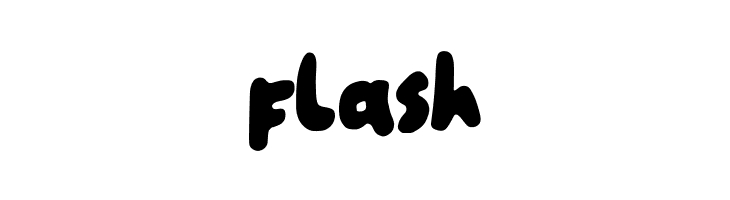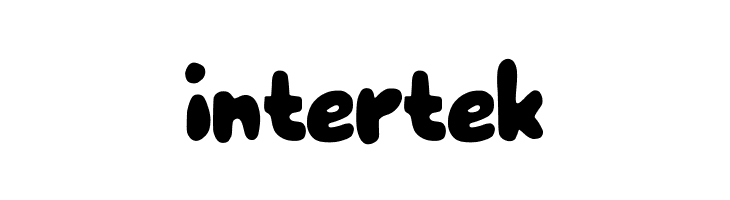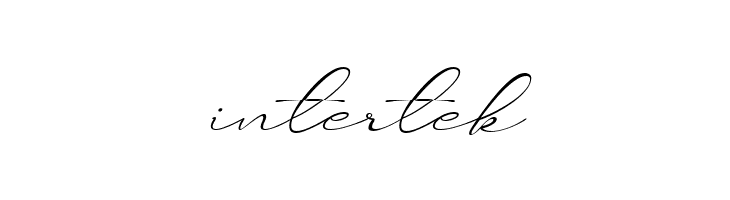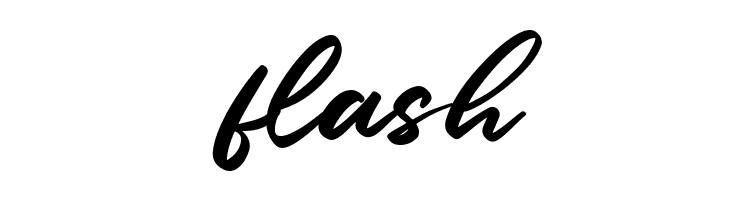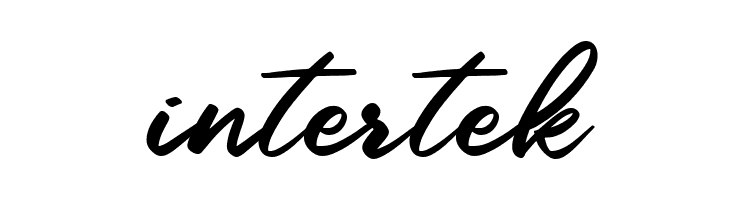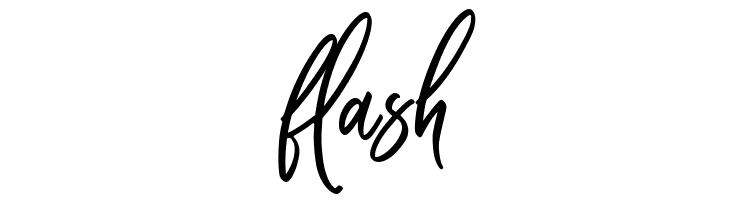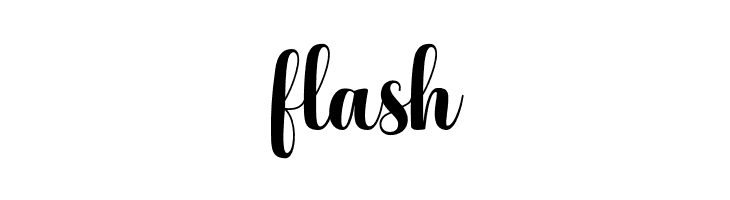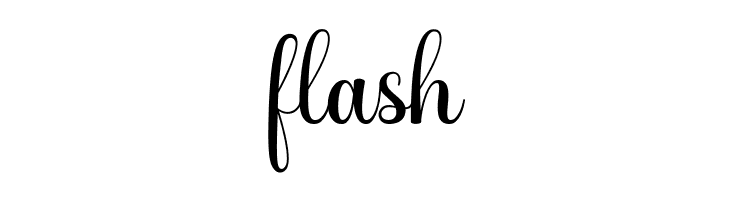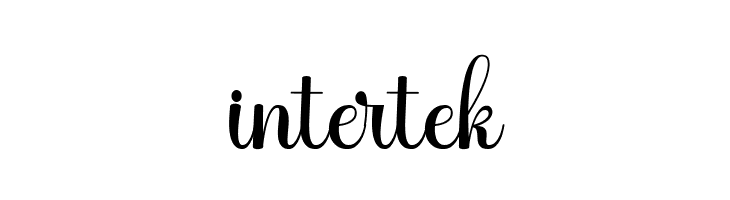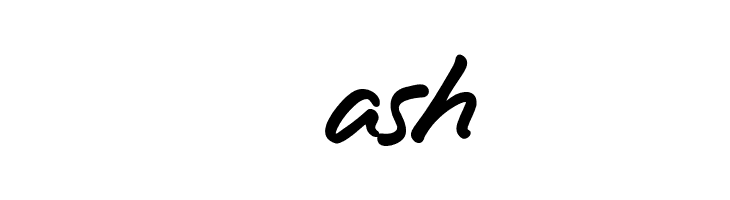
A charming script font with elegant, flowing cursive letters.
A romantic, cursive font with elegant, flowing letters and whimsical embellishments.
A bold, expressive script font with a dynamic, handwritten style.
An elegant, flowing script font with graceful loops and smooth cursive strokes.
A charming script font with elegant, flowing lines and a handwritten appearance.
A dynamic, brush-style script font with expressive, flowing characters.
Bold, modern handwritten script font.
A graceful and elegant script font with flowing, cursive letters.
An elegant and sophisticated script font with flowing, cursive style.
A dynamic brush script font with an energetic, hand-drawn style.
A casual handwritten font with smooth, slightly slanted strokes.
A playful, handwritten font with rounded edges and a casual style.
A playful, handwritten font with rounded edges and a casual, whimsical style.
A bold, handwritten font with fluid, connected strokes and a lively appearance.
A dynamic and fluid script font with elegant, flowing lines and cursive letterforms.
A bold, modern sans-serif font with a clean and geometric style.
Bold cursive script with elegant curves.
Elegant handwritten script font.
An elegant, flowing script font with a handwritten appearance.
An elegant script font with ornate, flowing letterforms and intricate flourishes.
A whimsical, handwritten script with tall, narrow, and fluid letterforms.
Energetic handwritten script with loose, natural strokes.
A playful, bold font with rounded, bubbly characters and a hand-drawn feel.
A lively and flowing script font with elegant curves and smooth connections.
A decorative script font with a ribbon-like, flowing style and high contrast strokes.
A playful, handwritten font with fluid strokes and a lively aesthetic.
A modern, cursive font with bold strokes and elegant connections.
A bold, brushstroke font with a dynamic, hand-painted style.
An elegant script font with flowing, decorative curves and intricate loops.
A dynamic handwritten font with fluid, elongated strokes and a personal touch.
A bold, expressive script font with flowing, cursive letterforms.
A bold, flowing script font with elegant, cursive letterforms.
Elegant, handwritten script with thin, flowing lines.
Expressive, brush-script font with a festive, hand-lettered look.